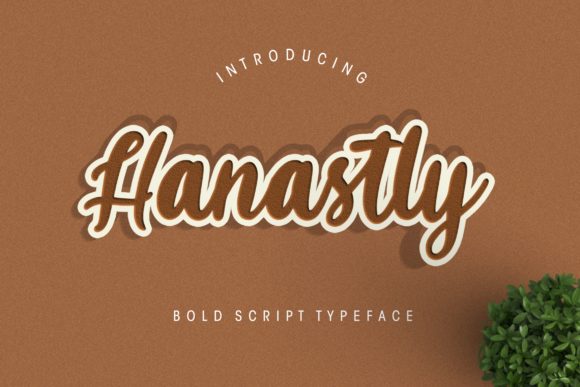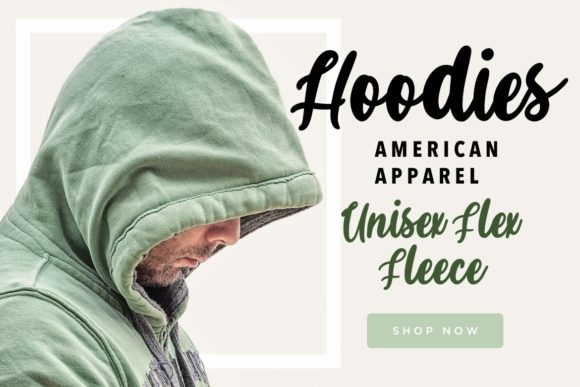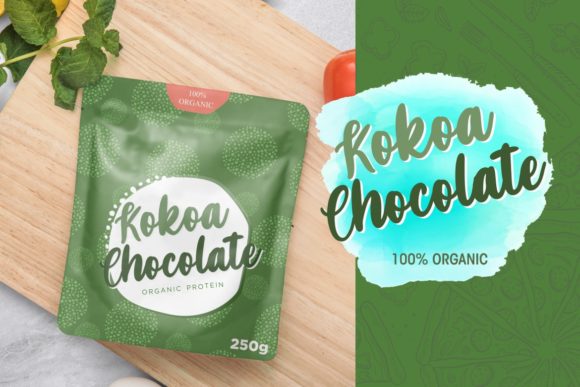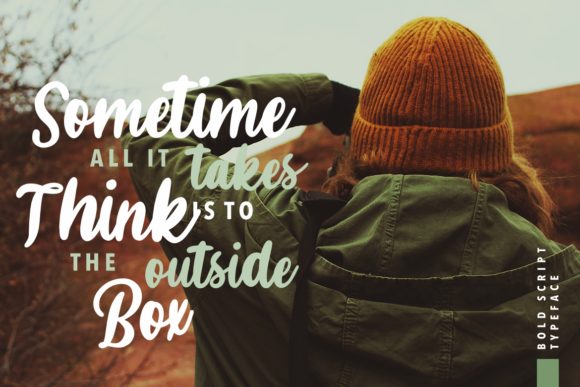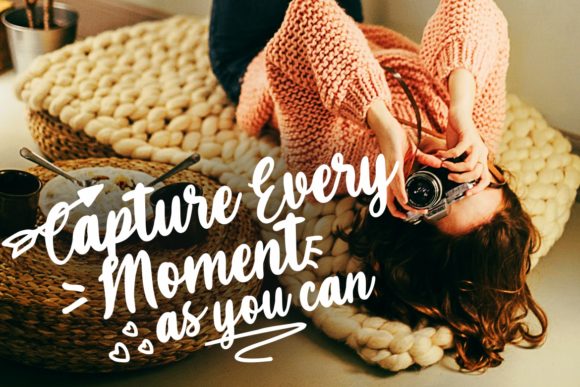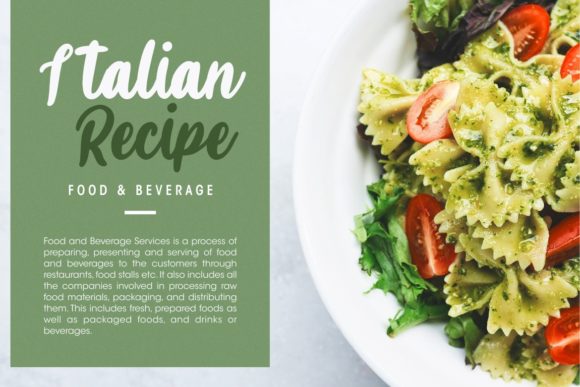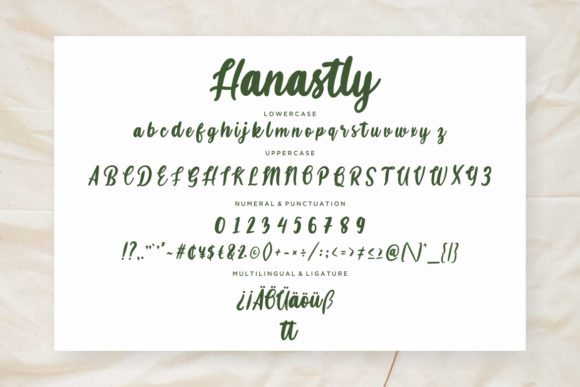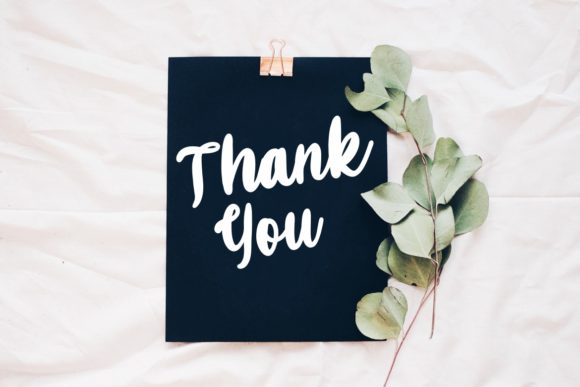
HomeScript FontsHanastly Font Script Fonts Hanastly Font FacebookXPinterestWhatsApp Hanastly Font Poster 2 Hanastly Font Poster 3 Hanastly Font Poster 4 Hanastly Font Poster 5 Hanastly Font Poster 6 Hanastly Font Poster 7 Hanastly Font Poster 8 About Hanastly Font Classy, bold and modern: Hanastly is an extremely versatile script, making it the ideal crafting font! DOWNLOAD ON CREATIVE FABRICAThis font is sold and delivered by Creative Fabrica. Font Canyon may earn a commission if you buy through this link. People also explored Designing Sketch & Numbers Scene Cutie Shark Font Kids Pony Font Summer Butterfly Font Spring Roll Font Rosesmont Font Matilna Samuela Font Jungland Outline Extra Light Font Bebilya Font 292 0 TagsHanastly Font Previous articleRusher FontNext articleSantiago Font LEAVE A REPLY Cancel reply Comment: Please enter your comment! Name:* Please enter your name here Email:* You have entered an incorrect email address! Please enter your email address here Website: Save my name, email, and website in this browser for the next time I comment. Personal Use Free Mixed Artistry Personal Use Free Read more about this font Fillguy Font Personal Use Free Read more about this font Kidly Personal Use Free Read more about this font Abuget Free Script Personal Use Free Read more about this font BLOG How to Install and Use Fonts on Windows, macOS, and Web Projects How to Install and Use Fonts on Windows, macOS, and Web Projects Fonts are a crucial part of design and branding. Whether you’re designing a... Exploring Font Trends Fonts That Capture the Spirit of New York City Top 7 Google Fonts Alternatives for Faster and Privacy-Friendly Web Design (2025)